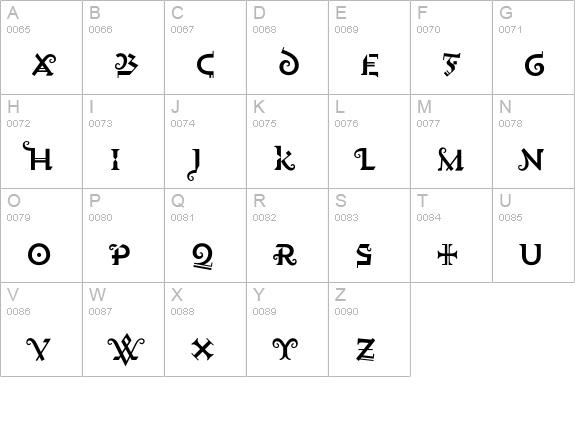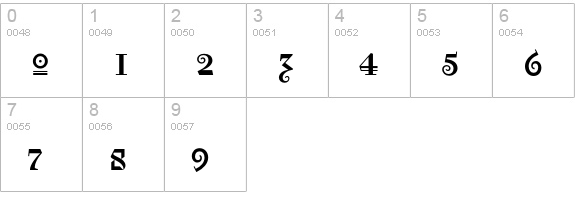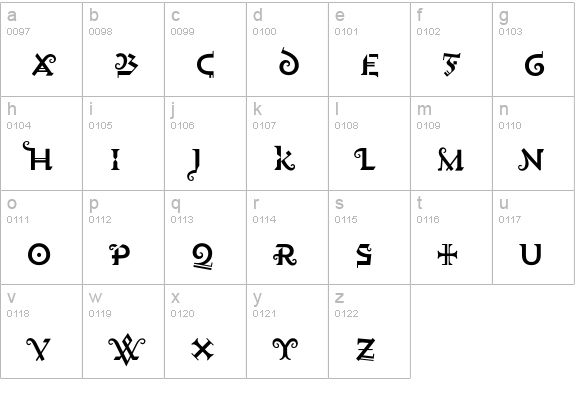
Fetish-HTF-No338 Font Details
Fetish-HTF-No338 font is a captivating and versatile typeface that exudes elegance and sophistication. With its unique blend of modern and classic design elements, this font is perfect for a wide range of creative projects. Its sleek lines and sharp edges make it stand out from the crowd, while its subtle curves add a touch of softness and warmth. What sets Fetish-HTF-No338 font apart is its seamless integration of traditional and contemporary aesthetics, making it a timeless choice for any design endeavor. Whether you're working on a branding project, editorial layout, or web design, this font will elevate your work to new heights. And the best part? Fetish-HTF-No338 font is available for free download at FontsMarket.com, allowing you to access this premium typeface at no cost. Don't miss out on the opportunity to enhance your designs with this stunning font – download it today and let your creativity shine!